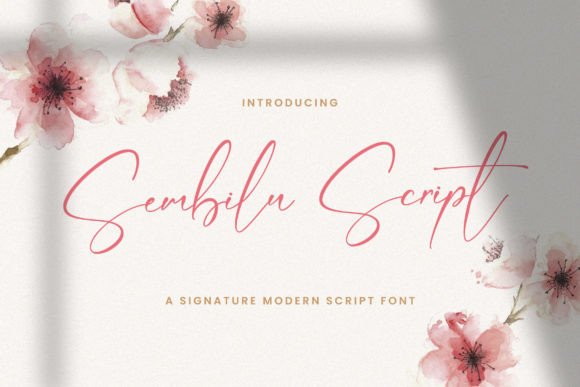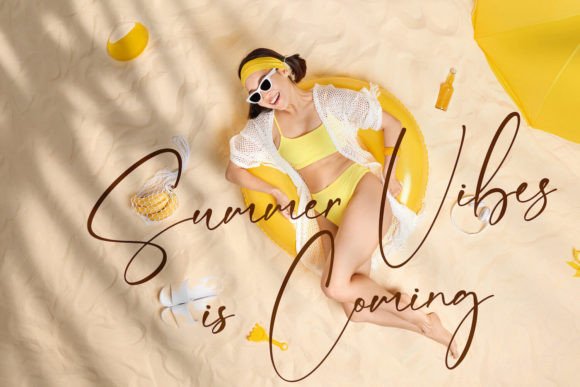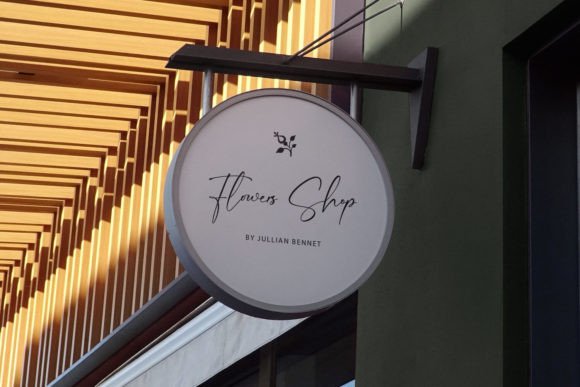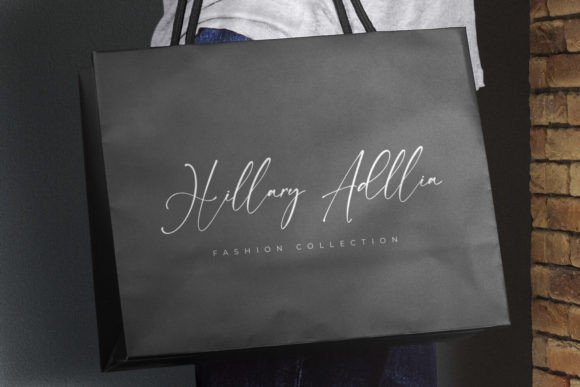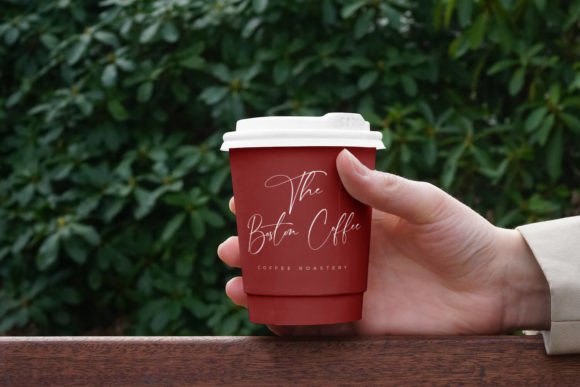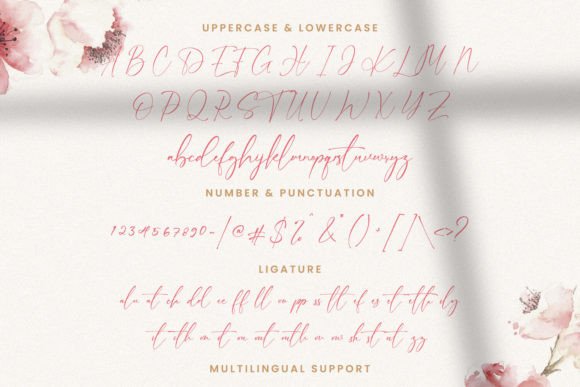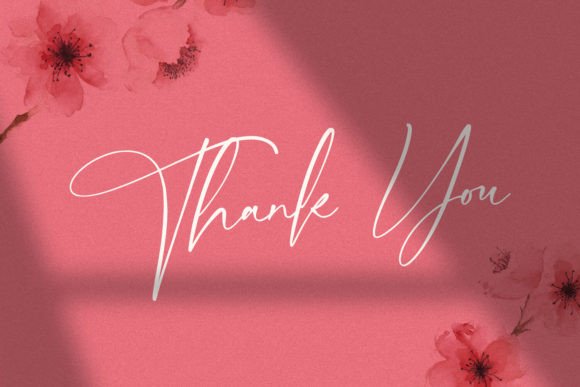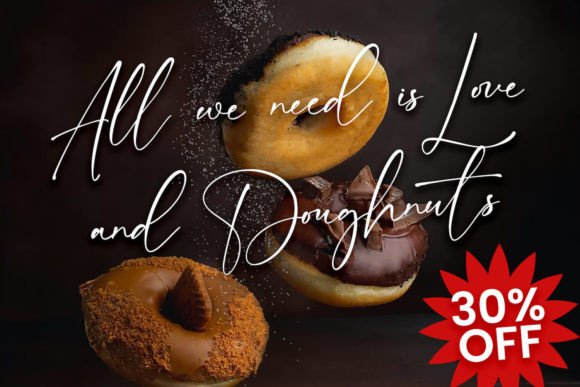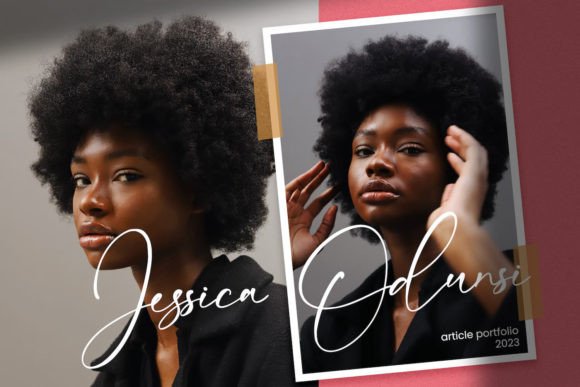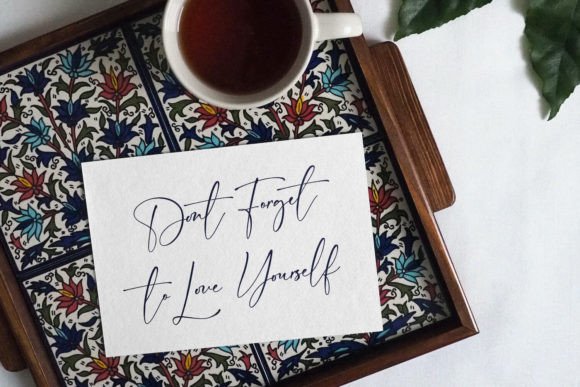
Sembilu Script Font
Sembilu Script Font Download – Elegant Flowing Handwritten Typeface
The Sembilu ScriptFont download is a delicate handwritten typeface that adds elegance and style to every project. With its smooth letters and balanced look, this font makes any design feel personal and creative. You can use it for cards, posters, or branding, and it will always make your work more beautiful.
Flowing Style of Sembilu Script Font Download
The Sembilu ScriptFont download has soft strokes and a natural flow. Because of this, it looks close to real handwriting. In addition, the smooth rhythm makes text easy to read and gives your designs a warm, personal touch.
Sembilu Script Font Download for Invitations and Cards
Wedding invitations and greeting cards look amazing with the Sembilu ScriptFont download. Not only does it add elegance, but it also creates a romantic tone. Therefore, it is the perfect font for designs that need to feel heartfelt.
Sembilu Script Font Download for Logos and Branding
The Sembilu ScriptFont download works well for logos, product packaging, and brand identity. As a result, it gives your business a creative yet professional look. Moreover, its clear letters make your brand name easy to read.
Sembilu ScriptFont Download in Posters and Digital Designs
You can also use the Sembilu ScriptFont download in posters, banners, and online projects. In addition, its flowing style adapts well to both print and digital media, keeping your work stylish everywhere.
PUA Encoded Features of Sembilu ScriptFont Download
Why Choose Sembilu ScriptFont Download for Your Projects?
The Sembilu ScriptFont download is elegant, easy to read, and simple to use. In other words, it is flexible enough for cards, posters, or branding. Finally, it is a great choice if you want a font that looks both stylish and personal.